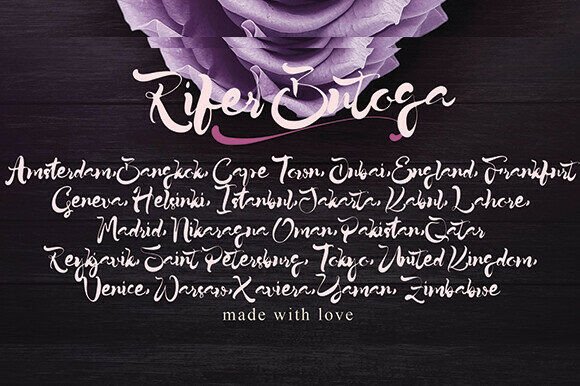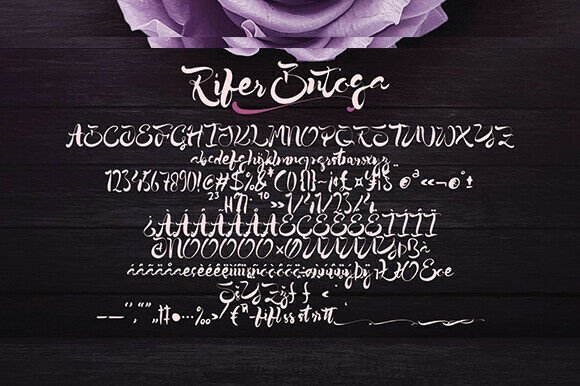
Introduction to Rifer Butoga Font Font
Fonts play a crucial role in design, and the Rifer Butoga Font font is a typeface that brings both character and versatility to any project. Whether you’re working on a branding project, a website, or a print design, the Rifer Butoga Font font offers a unique style that can elevate your work.
This decorative script font , Rifer Butoga , combines elegance and playfulness in a fluid handwritten style that exudes sophistication.
Its smooth, sweeping strokes and graceful curves create a refined yet approachable look, making it ideal for invitations, wedding stationery, logos, packaging, and branding projects that need a touch of romance and charm What sets Rifer Butoga apart is its beautiful collection of alternates and stylistic swashes , allowing designers to customize letterforms effortlessly for a more unique and polished composition.
Key Features of Rifer Butoga Font Font
Why Choose Rifer Butoga Font Font?
The Rifer Butoga Font font is more than just a typeface – it’s a design tool that helps you communicate your message with style and clarity. Its unique character set and versatile design make it suitable for a wide range of applications, from elegant invitations to bold headlines.
With its carefully crafted letterforms and balanced proportions, the Rifer Butoga Font font ensures readability and visual appeal across all mediums.
What makes Rifer Butoga Font font special?
The Rifer Butoga Font font stands out with its unique design, exceptional readability, and versatility across various design applications.